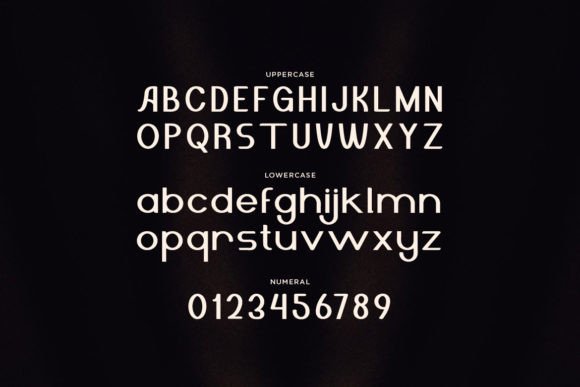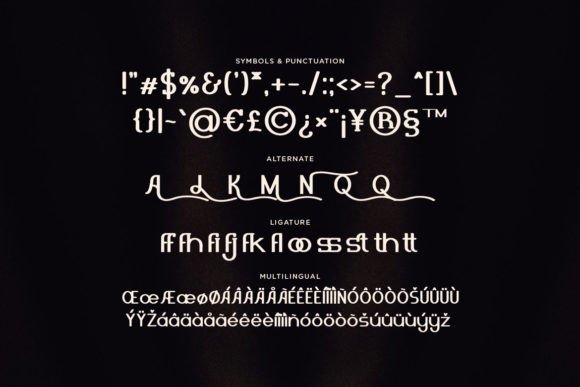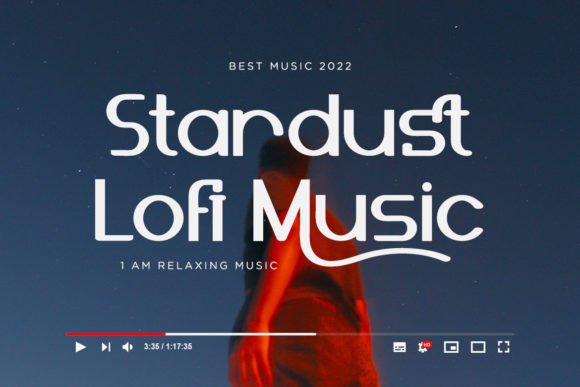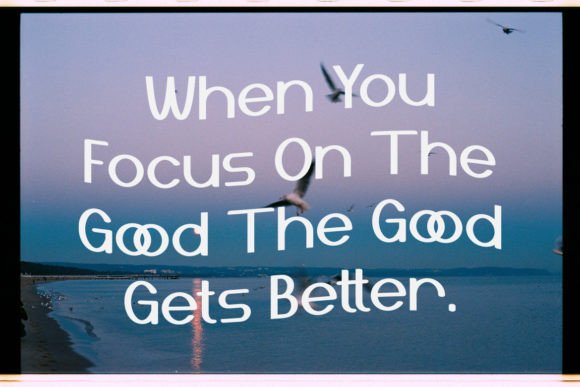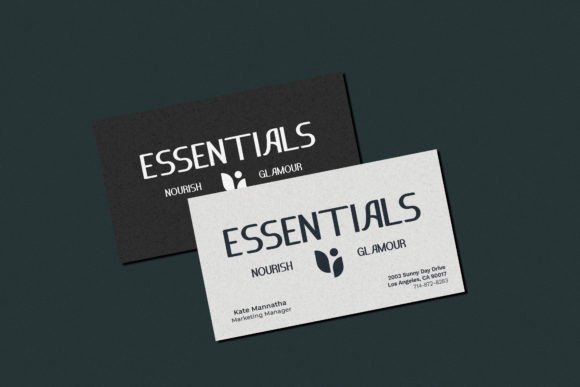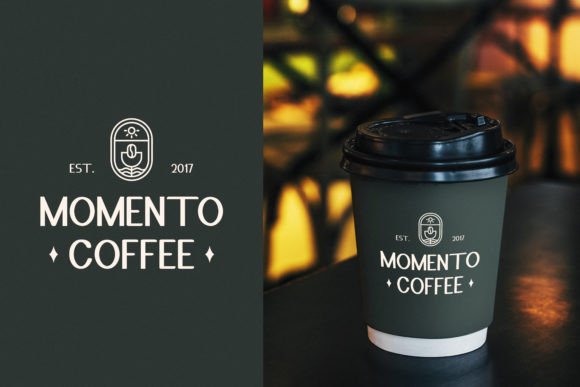
Have you ever been working on a project, and the perfect font just eludes you? You know, that elusive combination of style and functionality that elevates your design from good to great? We’ve all been there, staring at our screens, searching for that one font that will make our project shine.
Enter the Alssential Font, a unique sans font designed to bring a touch of cool to any project. With its clean lines and modern aesthetic, this font is perfect for designers looking to create something truly special. Whether you’re working on a logo, a brochure, or a website, the Alssential Font is the ideal choice for any project that requires a little extra flair.
Key Features of “Alssential Font”
- Font Family: Alssential Font is a modern sans-serif font family with a clean and minimalist design.
- Character Set: Supports a wide range of languages, including Latin, Cyrillic, and Greek alphabets, with over 1,000 glyphs.
- Size and Resolution: Designed to be highly legible at small font sizes (6-12 points), with optimal readability at 300-400 DPI resolution.
- Unique Characteristics: Alssential Font features a unique blend of geometric and organic shapes, creating a distinctive and modern aesthetic.
Alssential Font Review
I recently had the chance to work with the Alssential Font, and I must say it’s a mixed bag. Here are my honest thoughts on what works and what doesn’t.
- Unique aesthetic: The Alssential Font has a distinct, hand-drawn feel that can add a touch of elegance to any design project.
- Good legibility: Despite its unique style, the font is surprisingly easy to read, making it suitable for a wide range of applications.
- Customization options: The font comes with a range of weights and styles, allowing designers to fine-tune their designs to suit their needs.
- Overuse: The Alssential Font’s unique style can quickly become overused and tiresome, making it essential to use it sparingly.
- Lack of versatility: While the font is suitable for some applications, it may not be the best choice for more formal or technical projects.
- Not ideal for small text: The font’s intricate details can make small text difficult to read, so it’s best to use it for larger headings and titles.
The Alssential Font is a solid choice for designers looking to add a touch of personality to their projects. While it has its limitations, its unique aesthetic and good legibility make it a valuable addition to any design toolkit.
For optimal results, use Alssential Font for headings and titles, as it is designed to be bold and eye-catching.
Use it for logos, branding materials, and other design elements where a strong, modern look is desired.
Alternatives to “Alssential Font” for Designers
Inter Font is a modern sans-serif typeface designed by Rasmus Andersson. It is highly legible and versatile, making it suitable for both digital and print designs. Inter Font is ideal for use in body text, headings, and titles, and is particularly effective in creating a clean and minimalist aesthetic.
Inter Font compares to Alssential Font in its clean and modern design aesthetic, but with a more subtle and refined feel. While Alssential Font is often associated with a more edgy and avant-garde look, Inter Font is more understated and elegant.
Lato Font is a sans-serif typeface designed by Łukasz Dziedzic. It is highly readable and versatile, making it suitable for use in a wide range of designs, from body text to headings and titles. Lato Font is ideal for use in digital designs, particularly in web and mobile applications.
Lato Font compares to Alssential Font in its clean and modern design aesthetic, but with a more rounded and friendly feel. While Alssential Font is often associated with a more aggressive and edgy look, Lato Font is more approachable and inviting.